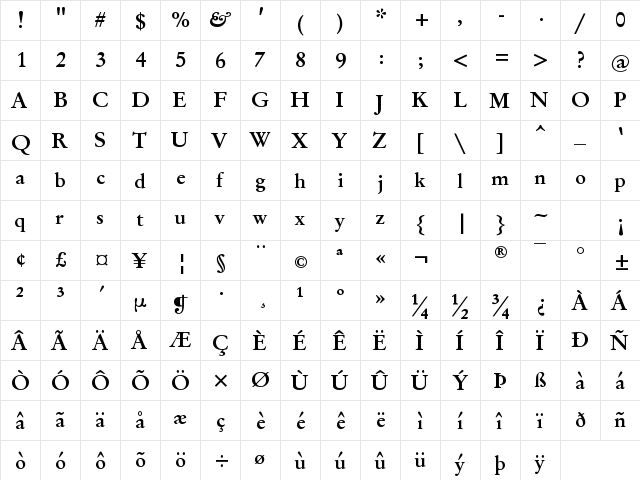
Alfios Bold
| Designer | George Douros |
Design Context for Alfios Typeface
Alfios takes a measured approach to typography — its balanced proportions and neutral character make it a reliable workhorse for both digital and print work. The heavy weight commands attention and anchors typographic hierarchies.
Pro Tip: Pair Alfios with a font of contrasting weight or personality to build a more expressive typographic hierarchy.